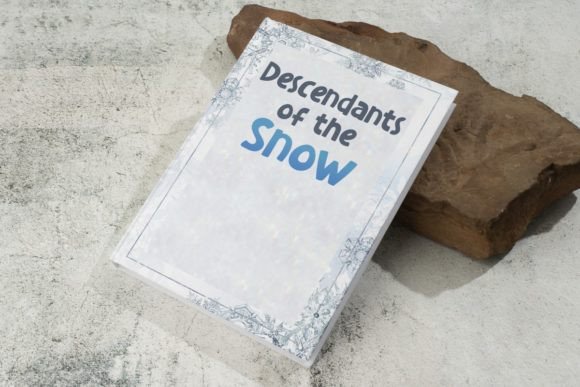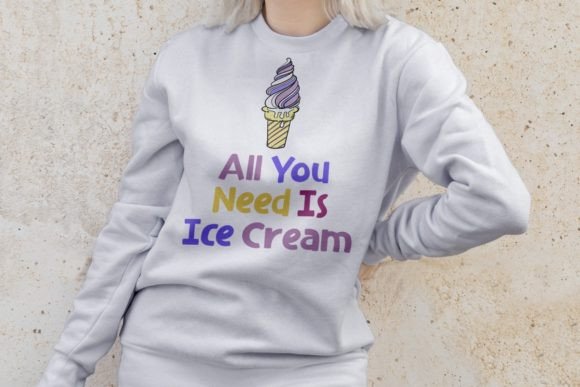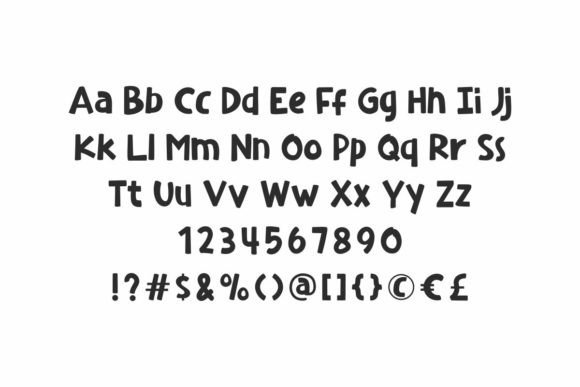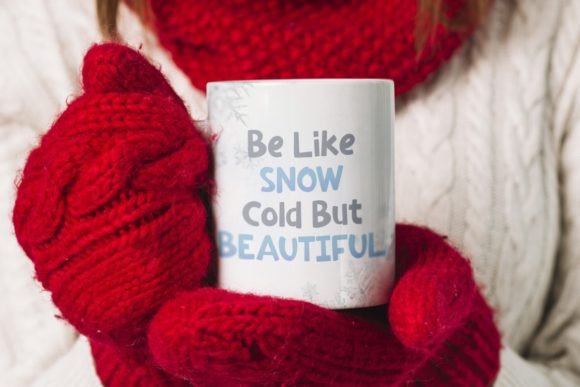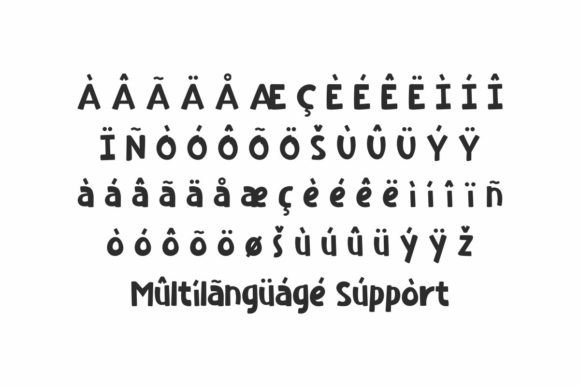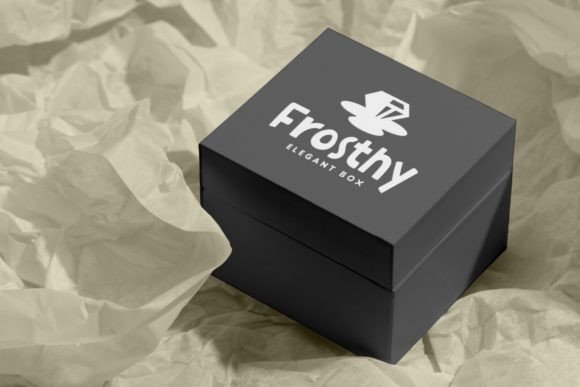
Adding a Cool Twist to Your Designs
Have you ever been brainstorming ideas for a new project, only to have a spark of creativity hit you when you least expect it? Maybe it was a late-night inspiration, or a chance encounter with a quirky design element. Whatever the case, it’s those moments of creative clarity that can take our designs from ordinary to extraordinary. For designers looking to inject some fun and personality into their work, we’re excited to introduce Ice Maker Font – a charming comic display font that’s sure to bring a smile to your face.
This delightful font is designed to add a touch of whimsy and playfulness to your designs, while still being easy to read and understand. With its wide range of applications, from printing and publishing to custom design and fashion, Ice Maker Font is the perfect addition to any designer’s toolkit. Whether you’re working on a kids’ book, a comic strip, or a cafe menu, this font is sure to bring a cool and creative twist to your projects.
Ice Maker Font Key Features
- Font Family: Ice Maker is a unique sans-serif font designed to resemble ice cubes, perfect for creative and modern designs.
- Size: Offers a range of font sizes, from 8pt to 72pt, to cater to various design requirements.
- Unique Characteristics: Features a distinctive “ice cube” design element, making it an ideal choice for creative projects, such as food packaging, beverage branding, and winter-themed designs.
- Kerning and Ligatures: Includes advanced kerning and ligature pairs to ensure smooth text rendering and a professional look.
Ice Maker Font Review
Overall, I think Ice Maker Font is a unique and quirky font that can add a fun touch to your designs. Here are some things that I think work well:
- ✨ The font is extremely easy to read, even at smaller sizes. The rounded edges and smooth lines make it feel friendly and approachable.
- ✨ The font is highly versatile and can be used in a variety of contexts, from logos to headings to body text.
- ✨ The font has a lot of character and can add a fun, playful touch to your designs.
- ⚠️ The font may not be the best choice for formal or professional designs, as it can feel a bit too playful and casual.
- ⚠️ The font may not be the most distinctive or memorable choice, as it doesn’t have a particularly unique or standout look.
- ⚠️ The font may not be suitable for designs that require a lot of precision or technical accuracy, as the rounded edges and smooth lines can make it feel a bit too soft or sloppy.
Overall, I think Ice Maker Font is a fun and playful font that can add a unique touch to your designs. However, it’s not the best choice for every project, and you should carefully consider whether it’s the right fit for your design goals and style.
Tips for Getting the Most Out of Ice Maker Font
To get the most out of Ice Maker Font, use it for:
- Cold beverage branding and marketing materials.
- Summer-themed graphics and designs.
- Ice-related products and packaging.
Alternatives to Ice Maker Font
1. Arial Rounded
Arial Rounded is a sans-serif font with rounded edges, making it a great alternative for designers looking for a friendly and approachable feel. It is best used for titles, headings, and body text where a clean and modern look is desired. Compared to Ice Maker Font, Arial Rounded is more straightforward and lacks the playful feel of Ice Maker Font.
Great Vibes is a modern sans-serif font with a relaxed, friendly feel. It is ideal for designers looking for a font that exudes a sense of approachability and friendliness. Compared to Ice Maker Font, Great Vibes is more laid-back and lacks the edgy feel of Ice Maker Font.
Open Sans is a clean and modern sans-serif font that is highly legible and versatile. It is suitable for designers looking for a font that can be used for a wide range of applications, from body text to titles. Compared to Ice Maker Font, Open Sans is more neutral and lacks the bold, edgy feel of Ice Maker Font.
Lato is a modern sans-serif font with a clean and sophisticated feel. It is ideal for designers looking for a font that exudes a sense of elegance and sophistication. Compared to Ice Maker Font, Lato is more refined and lacks the bold, playful feel of Ice Maker Font.